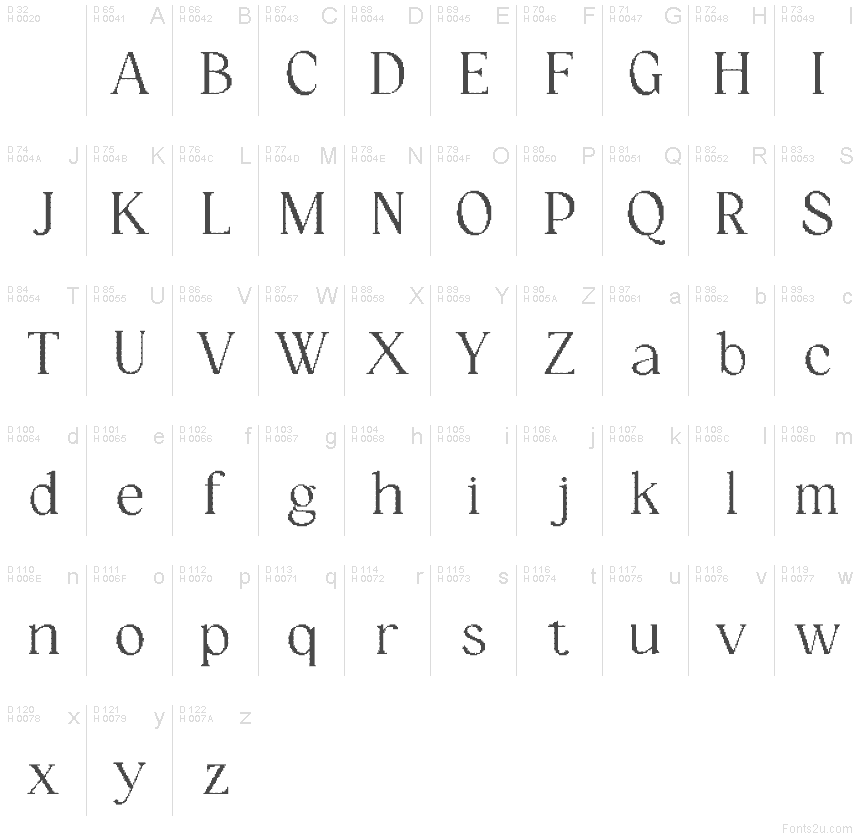
Catelyn Disco font by Craft Supply Co. is a free regular digital serif display font. Built on a classic serif skeleton, its strokes resolve into a tight matrix of dots that flicker like marquee lights—crisp, evenly spaced, and slightly granular. Contrast is modest, counters stay open, and the rhythm feels measured, so the shimmering texture never turns noisy.
Using Catelyn Disco, headlines snap with a retro‑futurist glow—great for nightlife posters, music event flyers, album covers, cosmetic or tech packaging, editorial titles, and social promos. This free font loves dark backgrounds and big sizes; add a touch of tracking to amplify the sparkle. Pair with a clean geometric sans for body copy to keep the spotlight on the dotted serif.